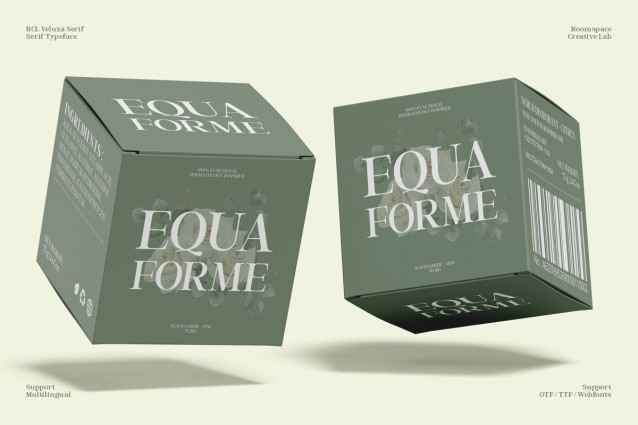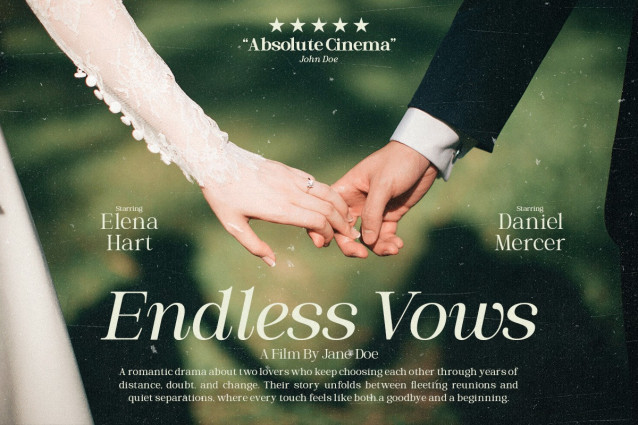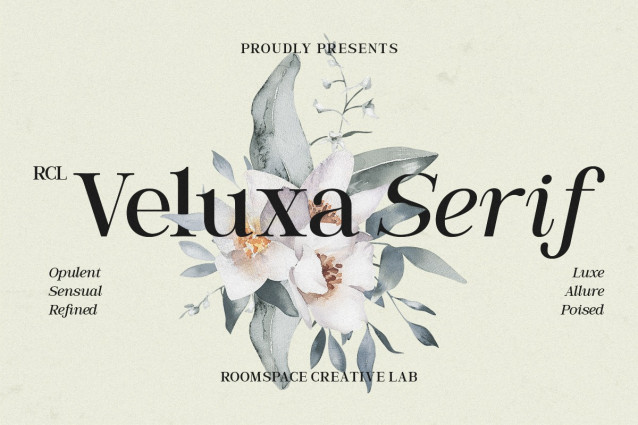
RCL Veluxa Serif Font is a refined modern serif font designed to bring elegance and confidence to premium branding. Inspired by fashion editorials and luxury packaging, Veluxa offers a soft yet structured character that feels timeless, calm, and expressive. From beauty labels to lifestyle cafés and magazine layouts, Veluxa adapts beautifully to modern branding needs while preserving a high-end aesthetic.